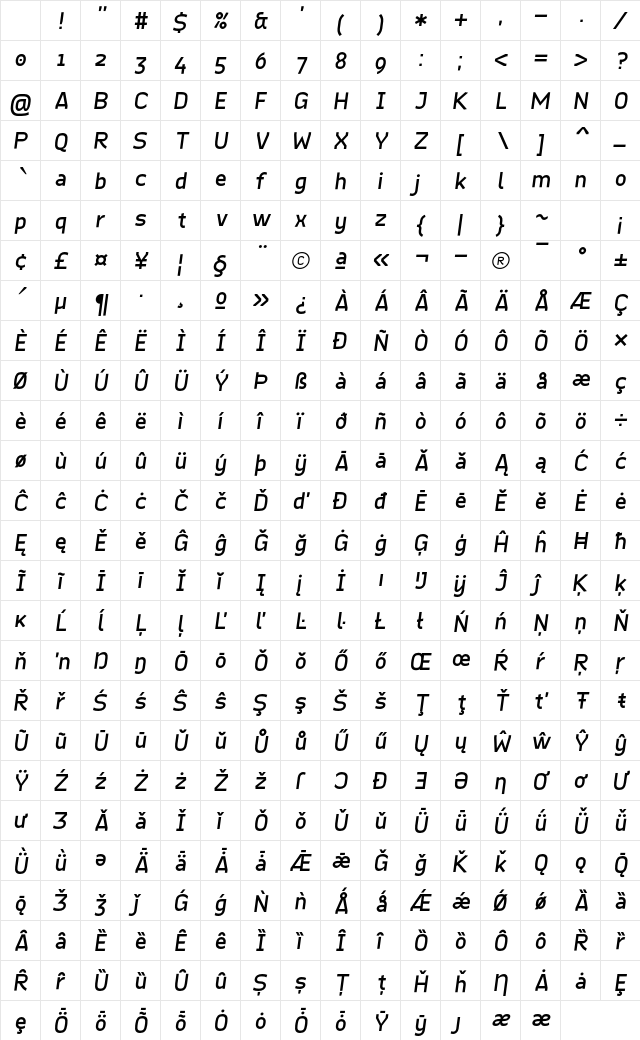
Quinone is a composed and adaptable typeface that performs quietly and consistently across a wide range of design contexts. The slanted form adds forward momentum and visual energy.
Pro Tip: Use Quinone for emphasis, pull quotes, and subheadings where its slanted energy can add rhythm to the layout.